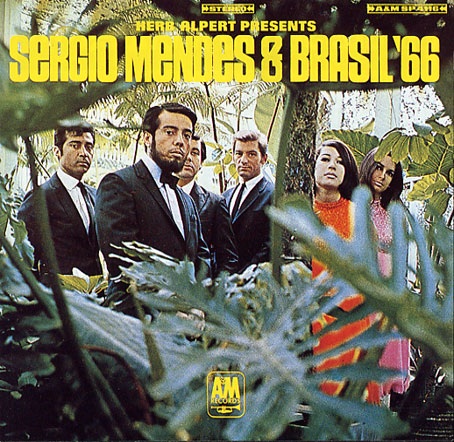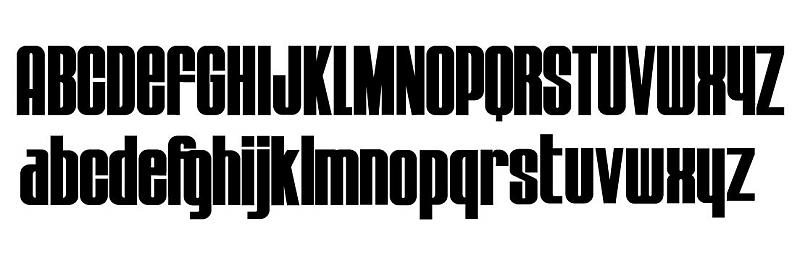
My first attempt at creating a font.
So I've been wanting to try my hand at creating a font... Never done it before. I finally found some inspiration to proceed. I was pouring through some old records and found a typeface that I really liked, and wanted to make my first Font from.
Dont laugh... the album is Sergio Mendes and Brasil 66,.... inspiration can come from strange places.
So... There was a very limited set of characters to work from but enough for me to base my project on. I created all of the type in Illustrator using a grid system and shape tools.
I know this is somewhat a derivative work, as you can see in the attached files, however I couldnt find a font exactly like this anywhere on the net, the closest I found was quadrata from LHF.
And Oh yeah, what do you think?
Kinda looks like House Gothic too, That typeface looks like something Photo-Lettering Inc would have done back in the day....(the Library is currently being digitized) cool typeface....